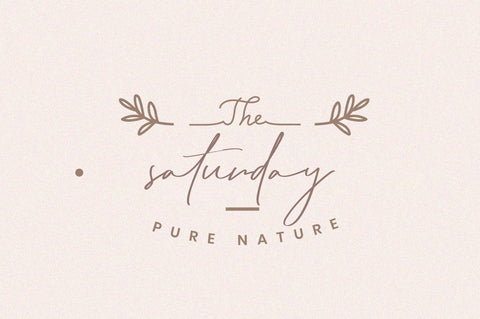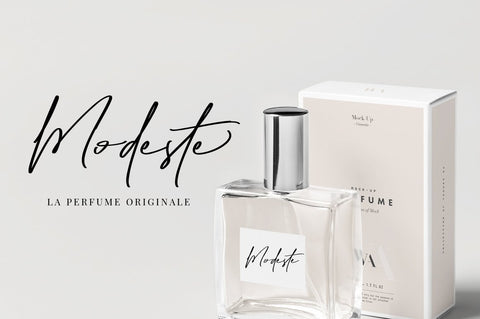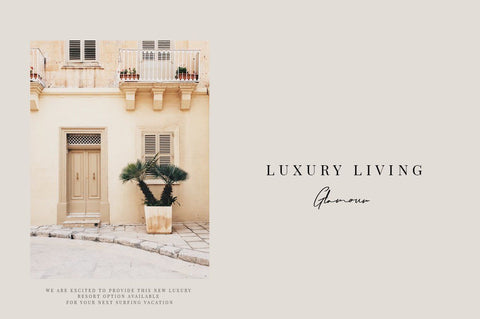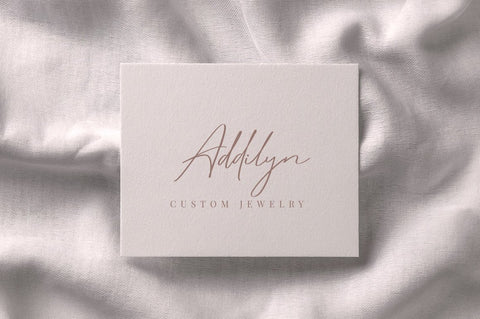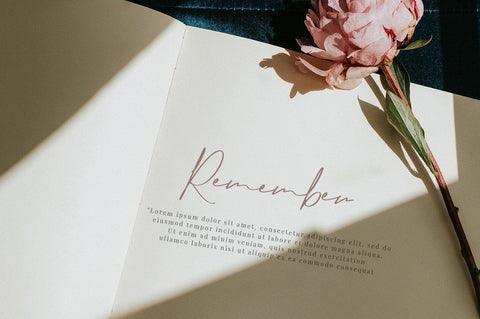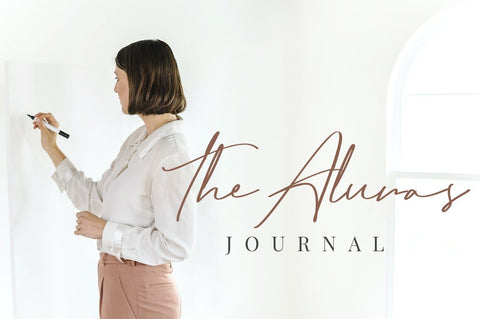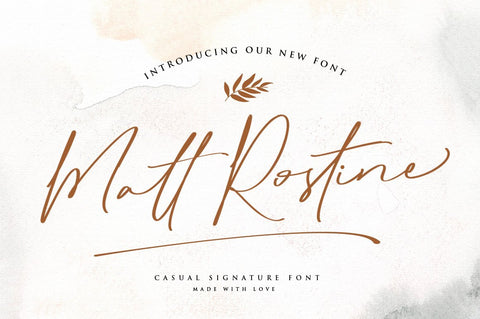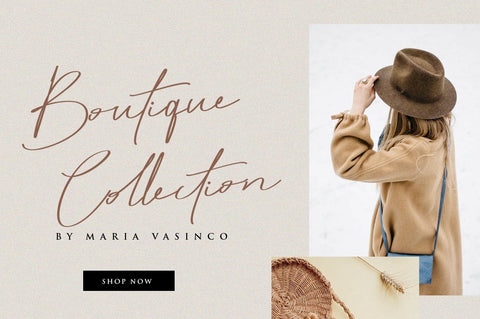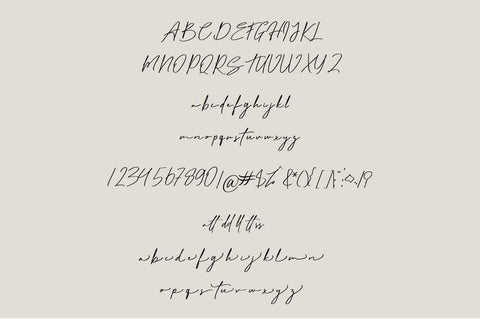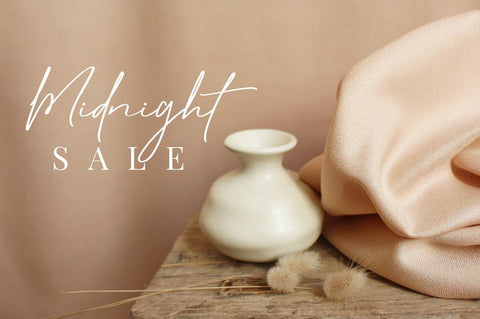
Matt Rostine - Signature Script Fonts
Matt Rostine feels equally charming and elegant. It looks stunning on wedding invitations, thank you cards, quotes, greeting cards, logos, business cards and every other design which needs a handwritten touch.
This font is PUA encoded which means you can access all of the glyphs and swashes with ease! It features a varying baseline, smooth lines, gorgeous glyphs and stunning alternates.
- Uppercase + Lowercase Letters
- Numbers + Punctuation
- Ligature Feature
- OpenType features
- Multilingual support